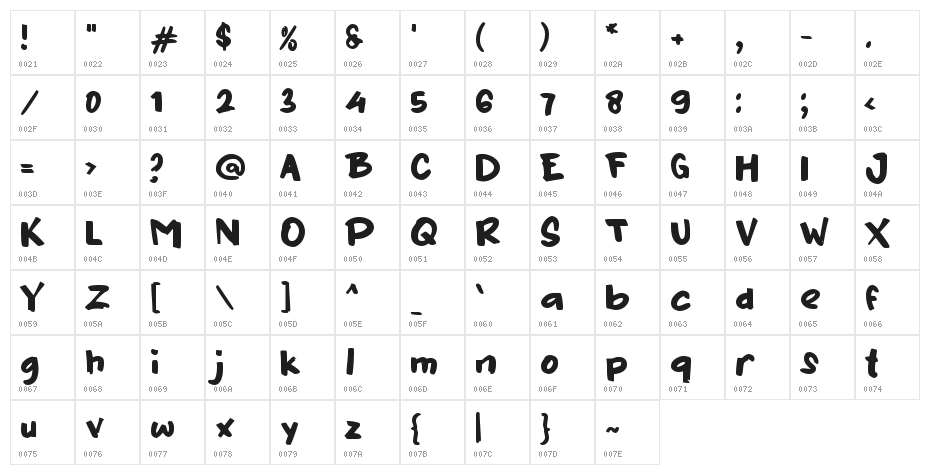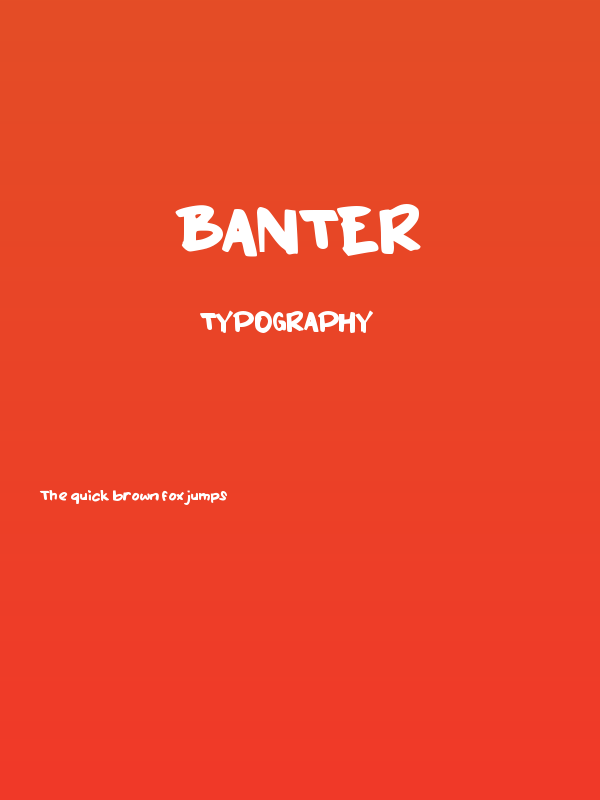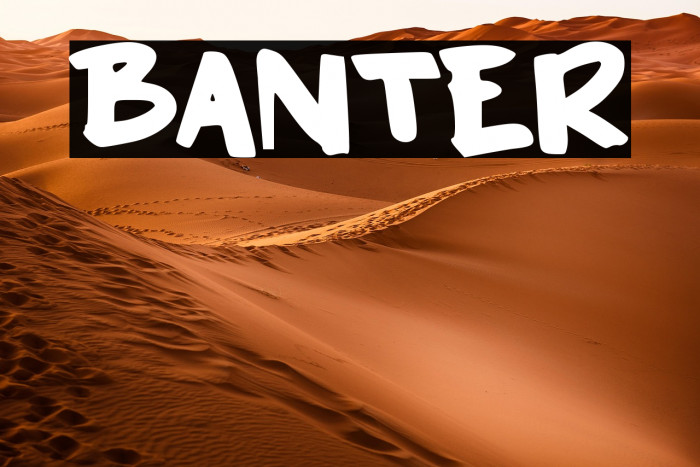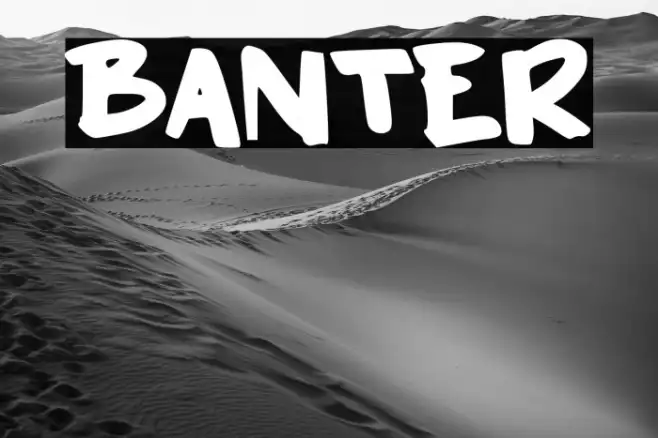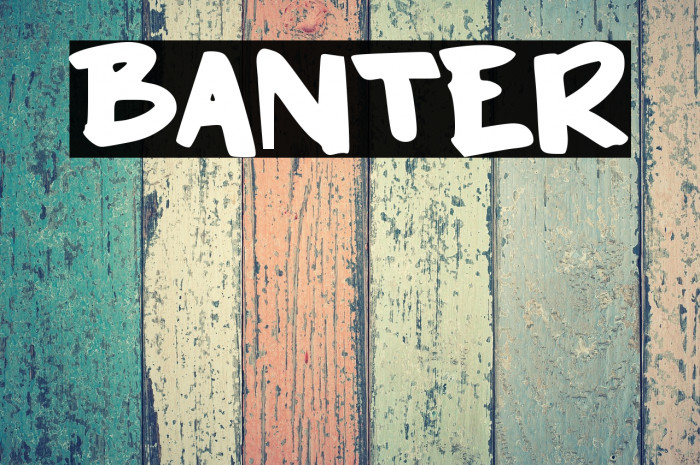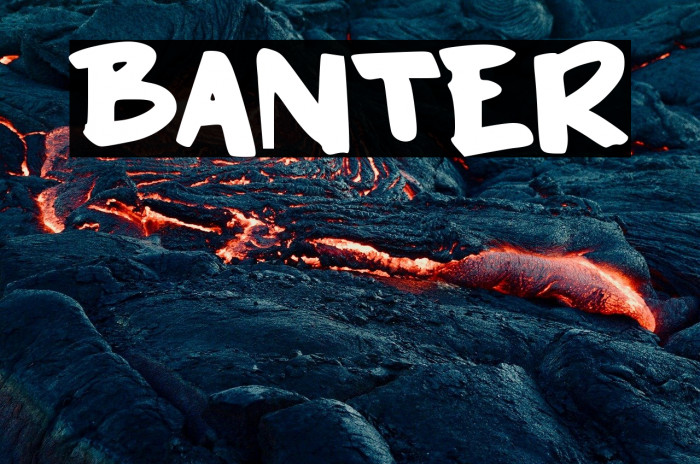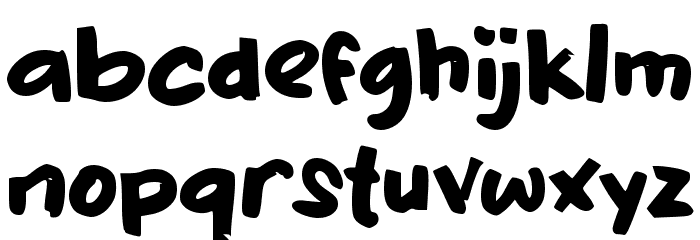
BANTER Font
BANTER Description
This font features a playful and bold design, characterized by its thick, rounded strokes and slightly irregular shapes that give it a hand-drawn appearance. The uppercase letters are robust and dynamic, while the lowercase letters maintain a consistent style with a touch of whimsy. The numerals are equally bold, ensuring visibility and impact. Special characters are creatively integrated, maintaining the overall playful aesthetic. This font is ideal for projects that require a fun and engaging visual element.
| Overall Style | Playful, Hand-drawn |
| Proposed Projects | Perfect for children's books, playful branding, posters, and social media graphics. |